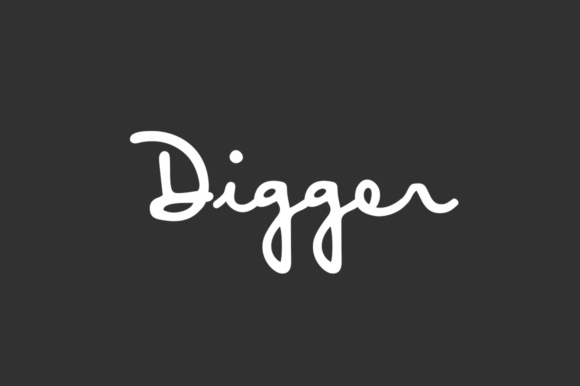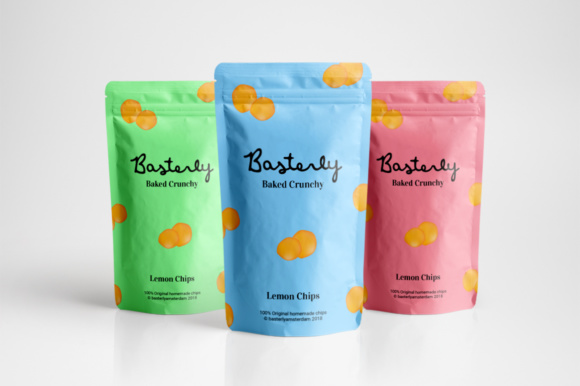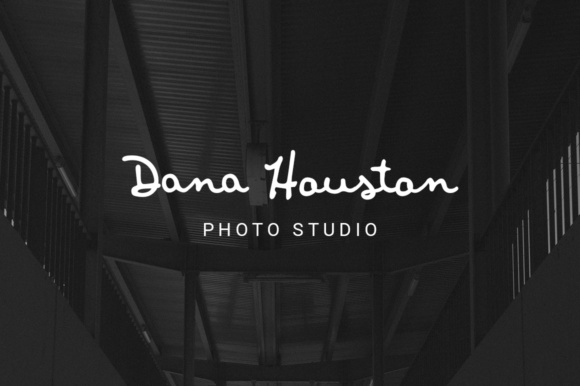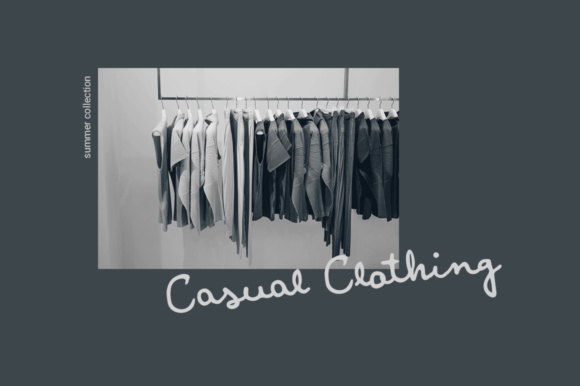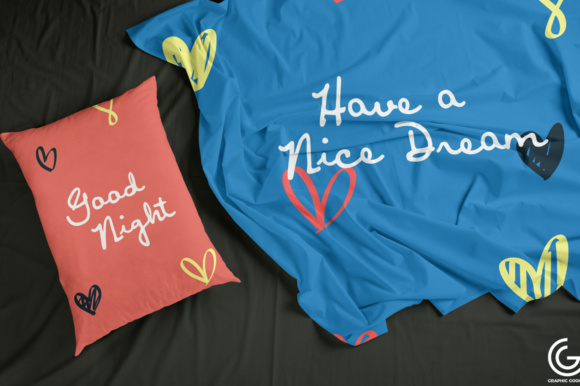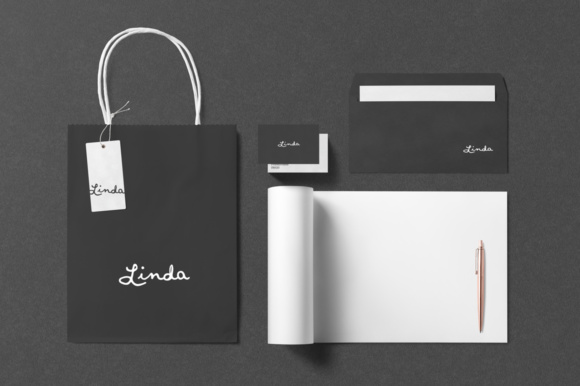
Digger Script Font
About Digger Script Font
The Digger is a cursive handwritten script with a strong personality. It comes from a handwriting that tries to achieve the beauty within it’s flowing characters while keeping the natural shapes from the original handwriting. The Digger will give a personal image to a brand and makes it looks elegant.